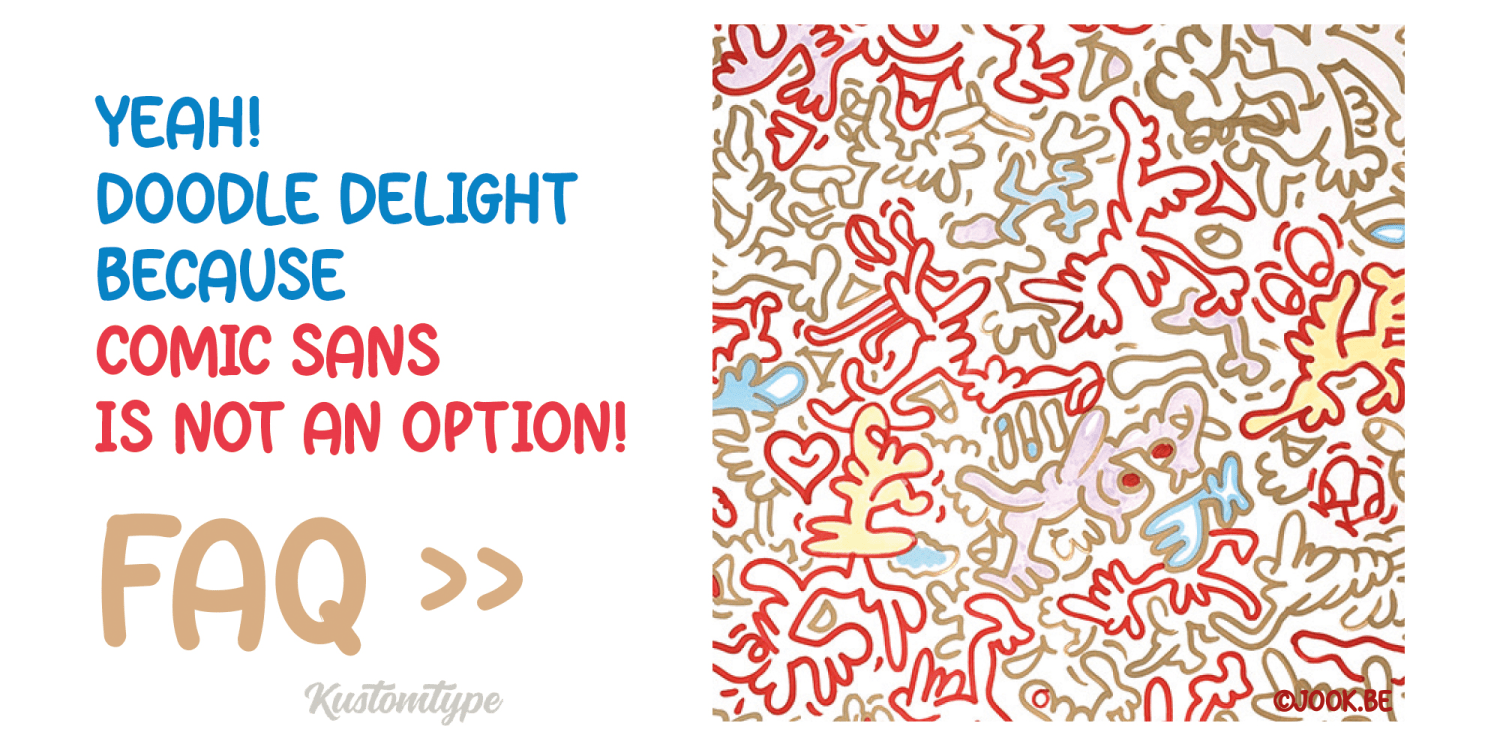
Doodle Delight
Font Family by Kustomtype
Doodle Delight isn't just a font; it's a creative companion for your everyday designs. With a family of two fonts – one regular and one italic – versatility is at your fingertips. The handwritten allure of Doodle Delight adds a touch of whimsy to your projects, ensuring that even the most fleeting strokes leave a lasting impression.
Why settle for ordinary when you can choose extraordinary? Elevate your advertising, packaging, logos, and branding with Doodle Delight. Tailor-made for the dynamic landscape of creative industries, this font transforms your concepts into captivating visual narratives. Whether you're a marketing maven, a packaging pro, or a branding virtuoso, Doodle Delight is your secret weapon to infuse that unmistakable creative flair.
Designed to make your next big project shine, Doodle Delight ensures that your work stands out in the crowd. Embrace the natural charm, let your creativity flow, and watch your designs come to life. Make a statement with Doodle Delight – because your projects deserve nothing less than extraordinary. Elevate, captivate, and stand out with the artistic magic of Doodle Delight!